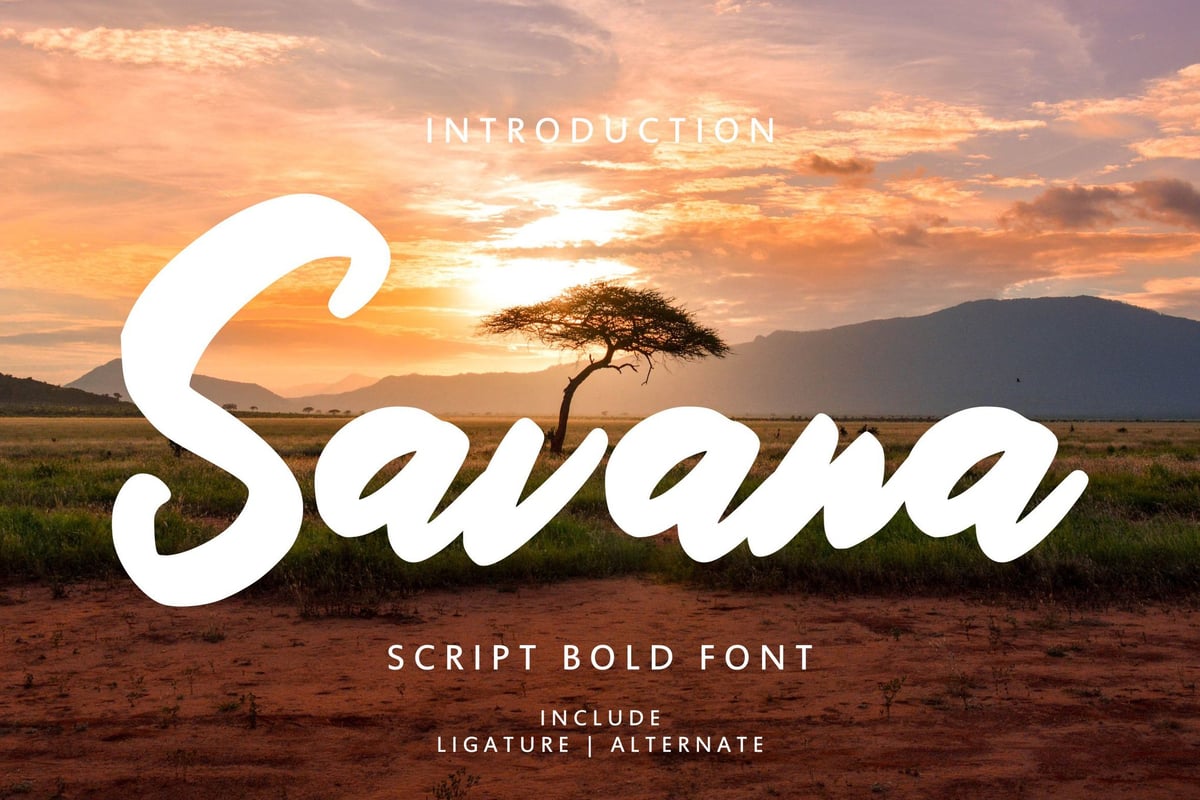
Free Savana - Script Bold Font
Savana is a bold, calligraphy-inspired script font built for stunning branding, invitations, and beyond.
With its flowing, expressive letterforms, Savana brings warmth and elegance to any design project. It's equally at home on wedding invitations, greeting cards, business cards, quotes, and posters.
Savana is packed with OpenType features to give you maximum creative flexibility. Alternative characters are organized across multiple feature sets:
- Stylistic Sets
- Stylistic Alternates
- Contextual Alternates
- Swash
- Ligatures